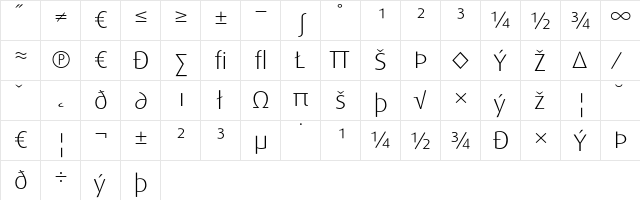
DaxWide LightExpert
Design Context for DaxWide Typeface
DaxWide takes a measured approach to typography — its balanced proportions and neutral character make it a reliable workhorse for both digital and print work. Its slender proportions lend an understated elegance to any composition.
Pro Tip: Pair DaxWide with a font of contrasting weight or personality to build a more expressive typographic hierarchy.